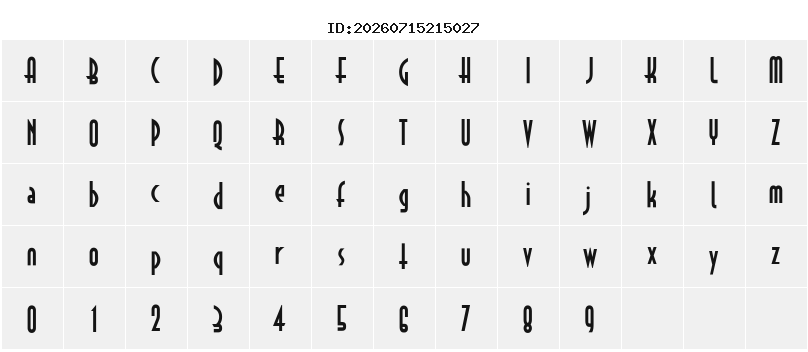
Astrud Preview
• Font Name: Astrud
• Full Font Name: Astrud
• Designer: P. Wiegel
• Manufacturer: P. Wiegel, Capitals by Earan Newman
About Astrud.ttf
Astrud.ttf is a modern, elegant sans-serif font designed for ultimate readability and visual harmony. Perfect for branding, headlines, web design, and print materials.